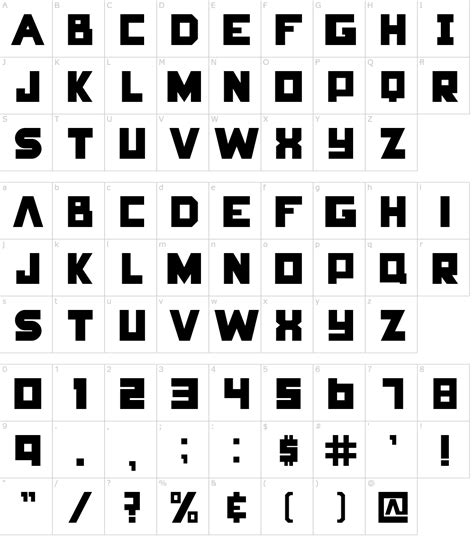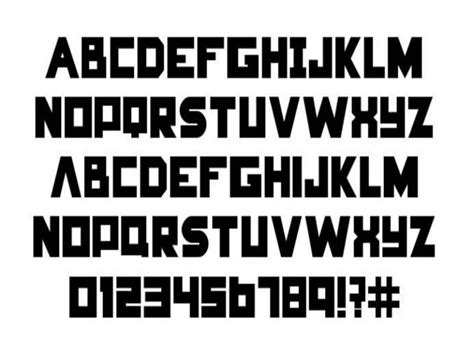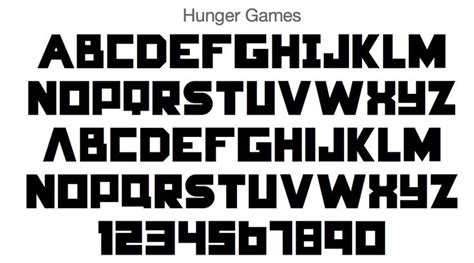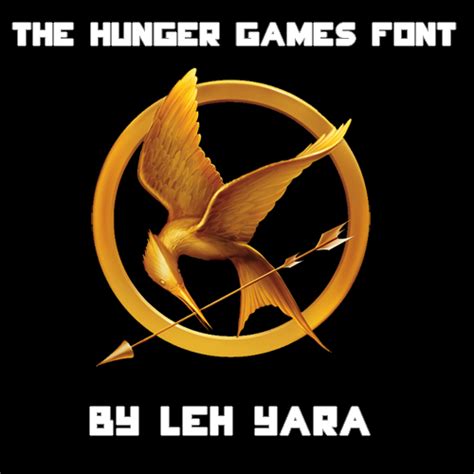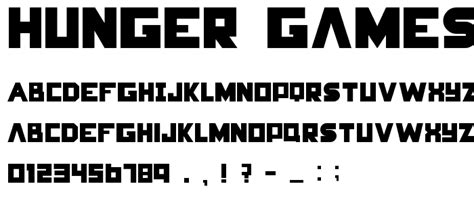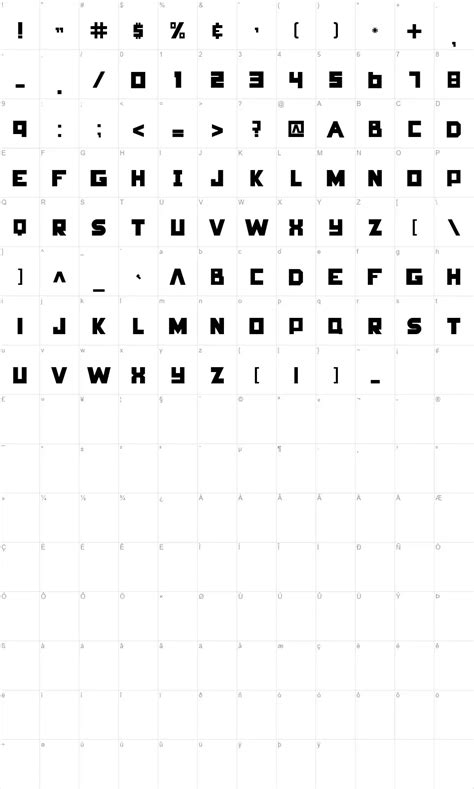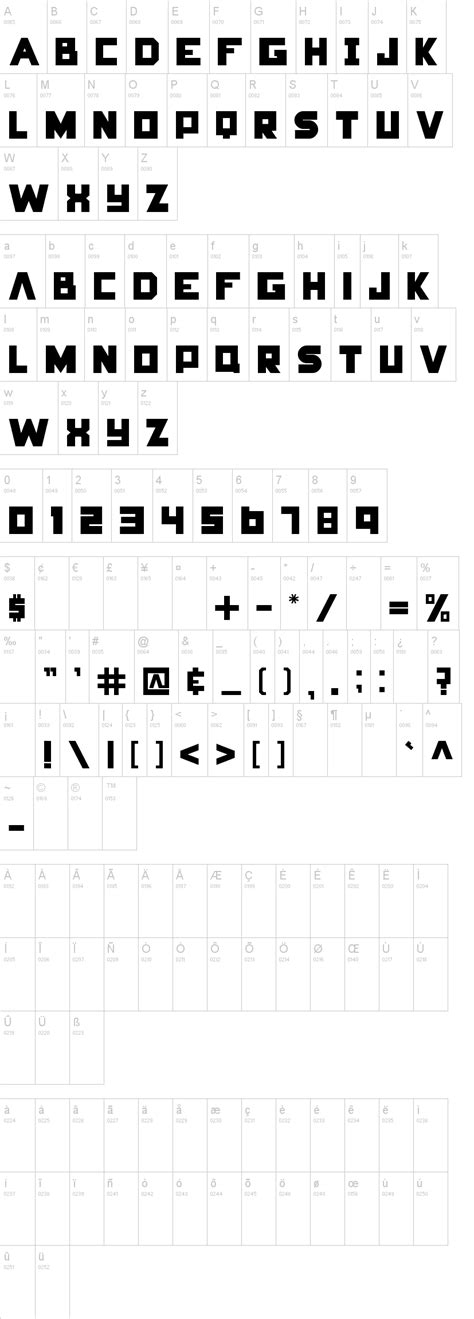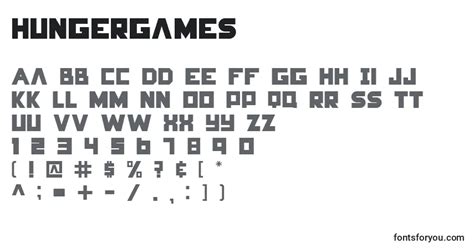
HUNGER GAMES FONT
The Hunger Games font is a distinctive and iconic element of the popular dystopian novel and its film adaptations. This font has become synonymous with the series' gritty and intense atmosphere, capturing the essence of a world on the brink of chaos and survival. The design of this font is a crucial aspect of the franchise's visual identity, contributing to the overall immersive experience for fans.
The font itself is a custom creation, designed specifically for the series. It is characterized by its bold and angular letters, with sharp edges and a slightly distorted appearance. This unique style reflects the harsh and often violent nature of the Hunger Games themselves, where tributes must fight to the death in a brutal arena.
One of the key benefits of this font is its ability to convey a sense of urgency and danger. The font's aggressive appearance mirrors the high-stakes nature of the story, where every decision and action can have dire consequences. This visual element helps to reinforce the tension and excitement that are integral to the Hunger Games narrative.